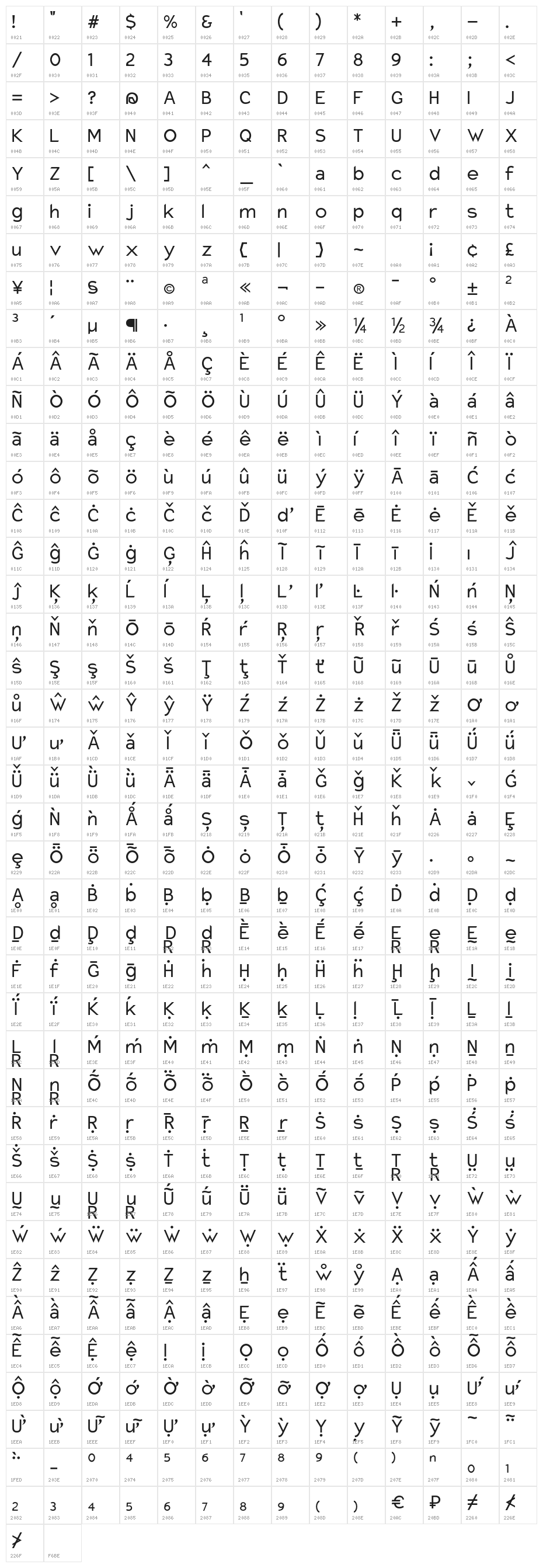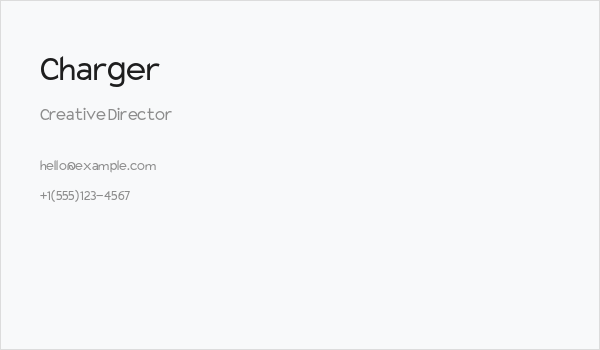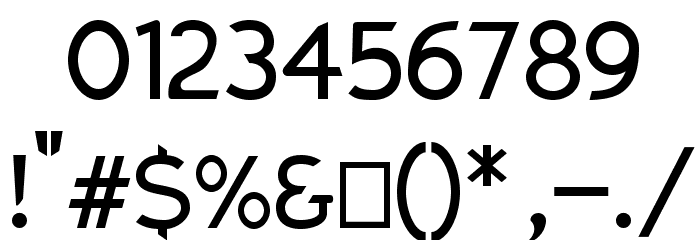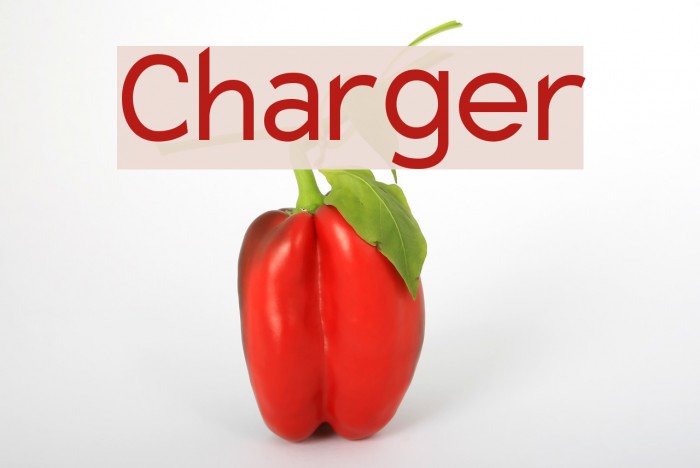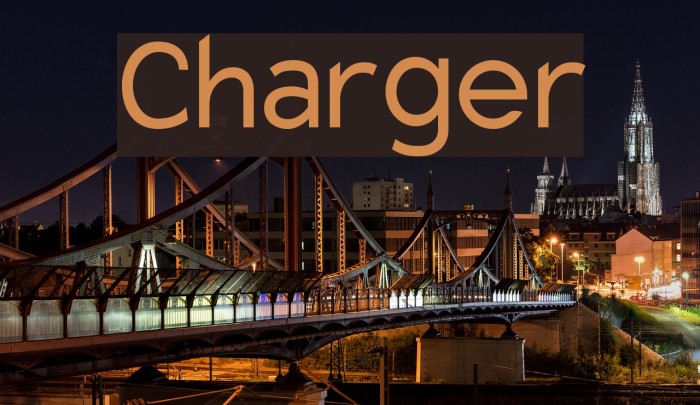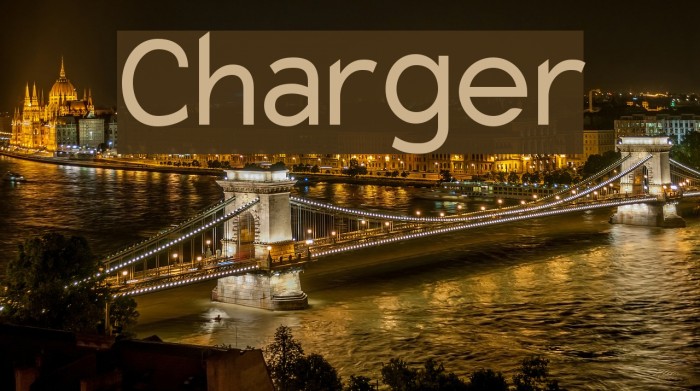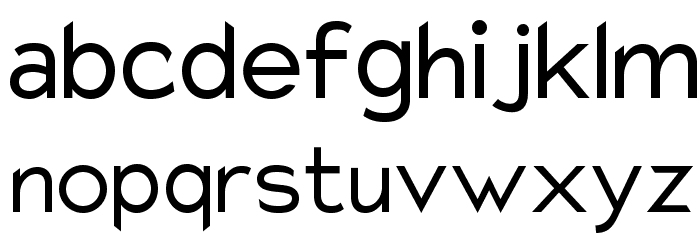
Charger Font
Charger Description
This font exhibits a clean and modern sans-serif style, characterized by its geometric shapes and uniform stroke widths. The uppercase letters are bold and assertive, while the lowercase letters maintain a consistent and harmonious flow. The numerals are clear and easily readable, making them suitable for various applications. Special characters are well-defined, adding versatility to the font's usage. Overall, this typeface is designed for clarity and impact, making it ideal for both digital and print media.